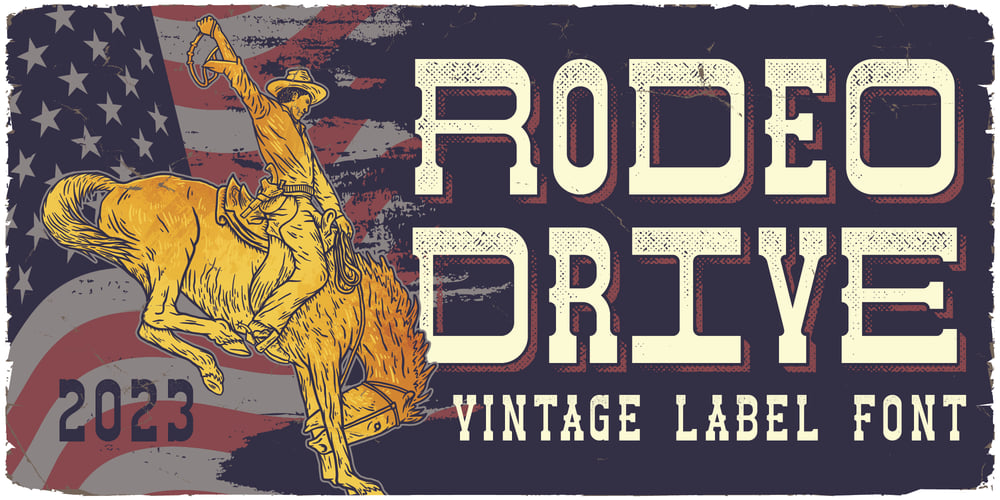
Rodeo Drive Font Family was designed by Oleg Voznyy and published by Vozzy. Rodeo Drive contains 4 styles and family package options. Introducing vintage label font duo named Rodeo Drive. This typeface was inspired by various signs and lettering from the Wild West.This font has an additional characters and multilungual support (check out all available characters on previews). Font family has four styles: Regular, Texture, Extrude and Extrude FX. This font will look good on any western styled designs like a poster, T-shirt, label, logo, etc.